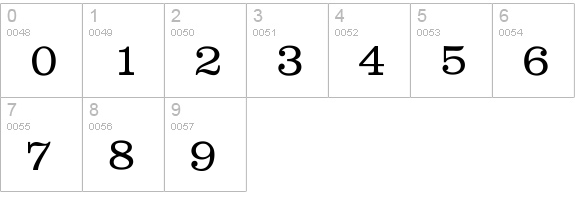
OPTICrawClarendon-Book Font Details
OPTICrawClarendon-Book is a comfortable, highly readable variant in the OPTICrawClarendon typeface family \xE2\x80\x94 well suited to long-form body text, articles, and editorial content.
OPTICrawClarendon-Book is a classic and elegant font that exudes sophistication and timelessness. With its clean lines and balanced proportions, this versatile typeface is perfect for a wide range of design projects, from elegant invitations to professional branding. The clarity and readability of OPTICrawClarendon-Book make it an ideal choice for both print and digital applications. What sets OPTICrawClarendon-Book apart is that it is available for free download at FontsMarket.com. This means that you can easily access this high-quality font without any cost, making it a valuable addition to your font library. Whether you are a designer looking for a reliable and stylish typeface or a hobbyist looking to enhance your projects, OPTICrawClarendon-Book is a fantastic choice that won't break the bank. Don't miss out on the opportunity to elevate your designs with the timeless appeal of OPTICrawClarendon-Book. Download it for free today at FontsMarket.com and start creating stunning visuals that stand out from the crowd.